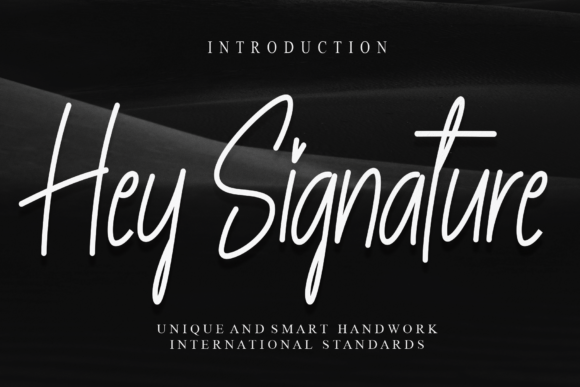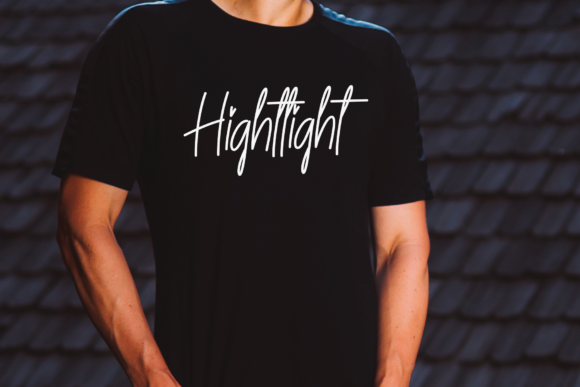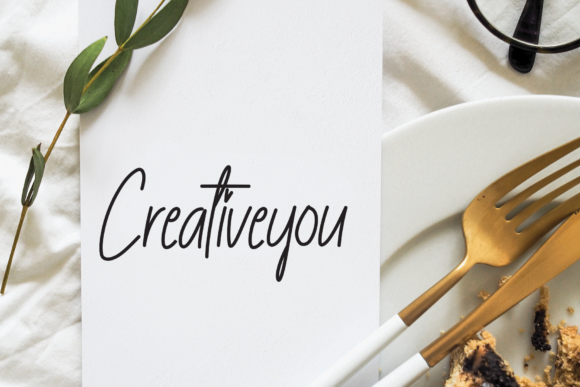
Hey Signature Font
About Hey Signature Font
Hey Signature is a beautiful and flowing script font. Add this romantic and lovely looking font to each of your love letters, wedding invitations or favorite design ideas, and you will be astounded by the outcome.